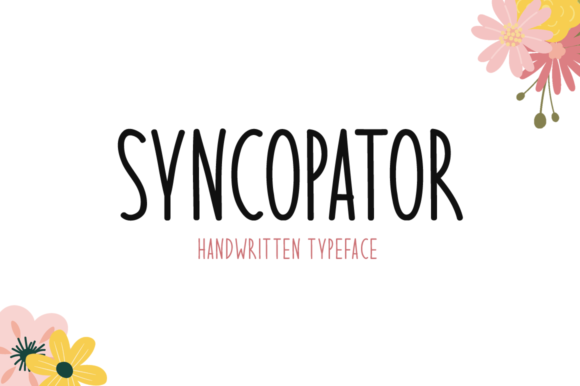
Behold Syncopator, a delightful script font that will make your designs dance with joy! This charming handwritten font exudes a warm and friendly personality, adding a touch of whimsy to any project. Its natural flow and unique style make it incredibly versatile, allowing you to create designs that are both captivating and unforgettable.
Picture this: Christmas ornaments adorned with Syncopator's graceful letters, spreading holiday cheer wherever they're hung. The font's playful curves and cheerful charm make it the perfect choice for adding a personal touch to your festive creations. Let your imagination soar as you craft unique gift tags, greeting cards, and decorations that will undoubtedly bring smiles to the faces of your loved ones.
Syncopator is more than just a font; it's an invitation to express your creativity and create designs that resonate with your audience. Whether you're a seasoned designer or just starting, Syncopator will effortlessly elevate your projects and leave a lasting impression. Don't miss out on the opportunity to add this enchanting font to your collection and unlock a world of creative possibilities. Embrace the magic of Syncopator today!
"Syncopator is a game-changer! Its whimsical style adds a touch of magic to my designs, making them stand out from the crowd." - Sarah J., Graphic Designer
"I love the way Syncopator brings my Christmas ornaments to life. It's like each ornament has its own personality." - Maria K., Crafter and Etsy Seller